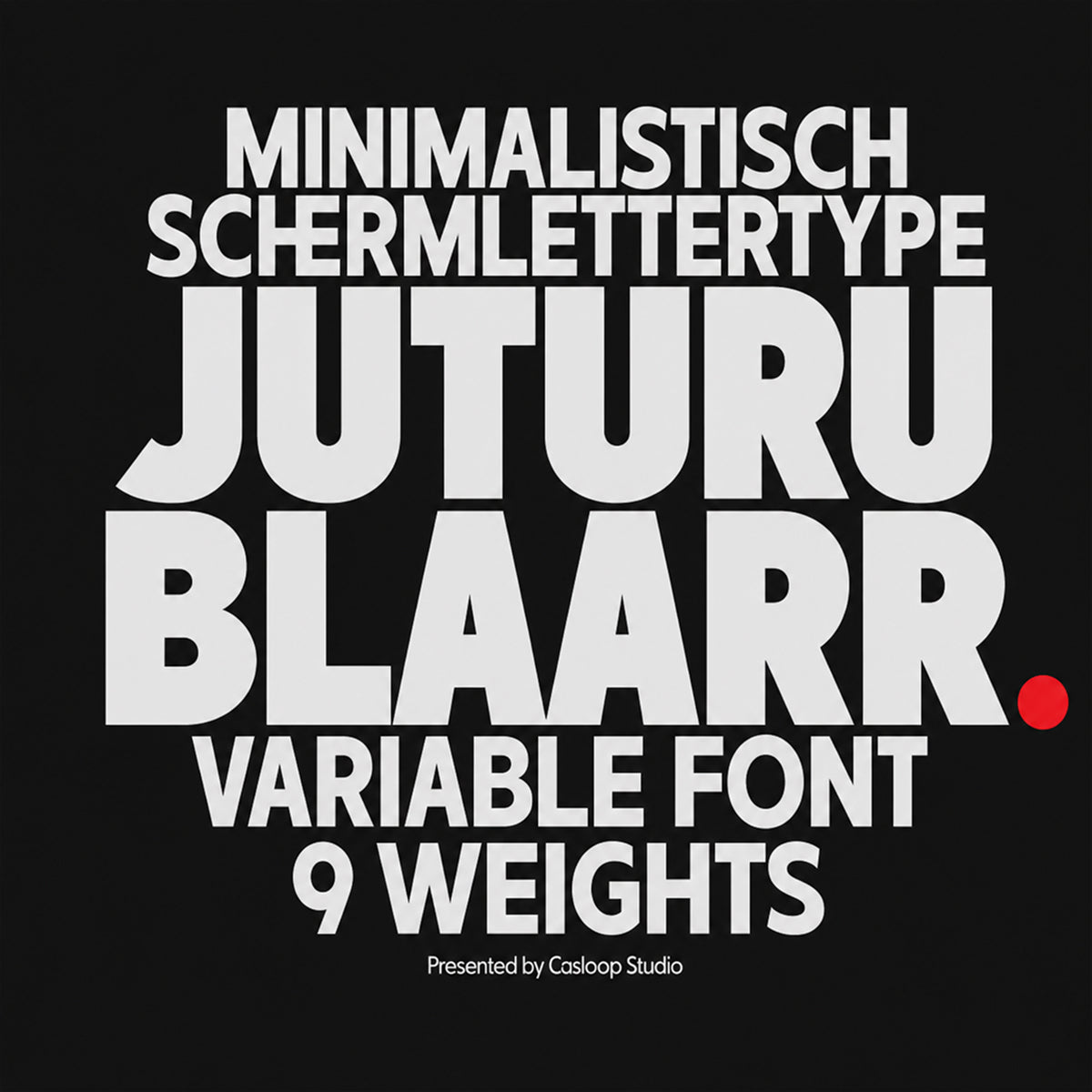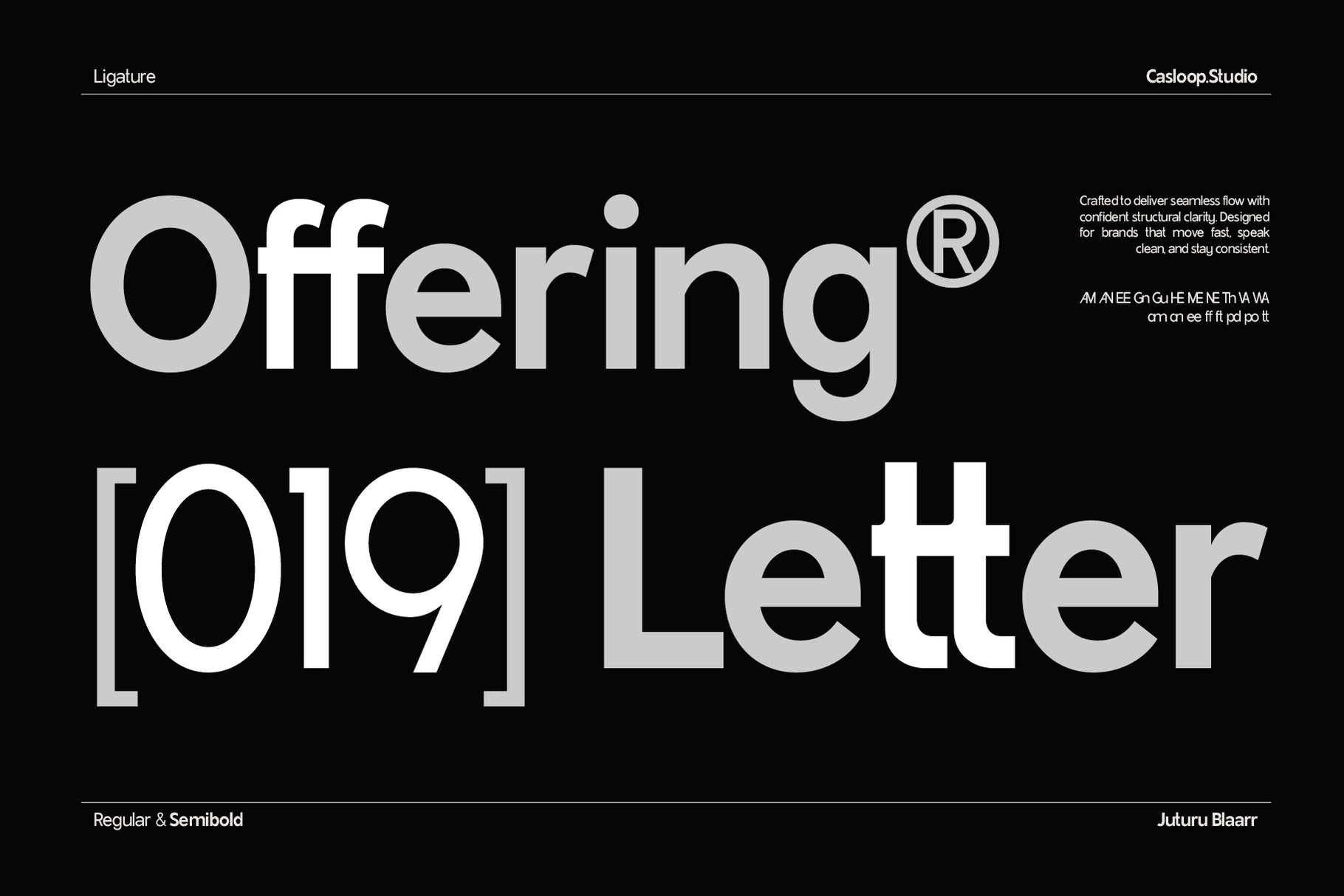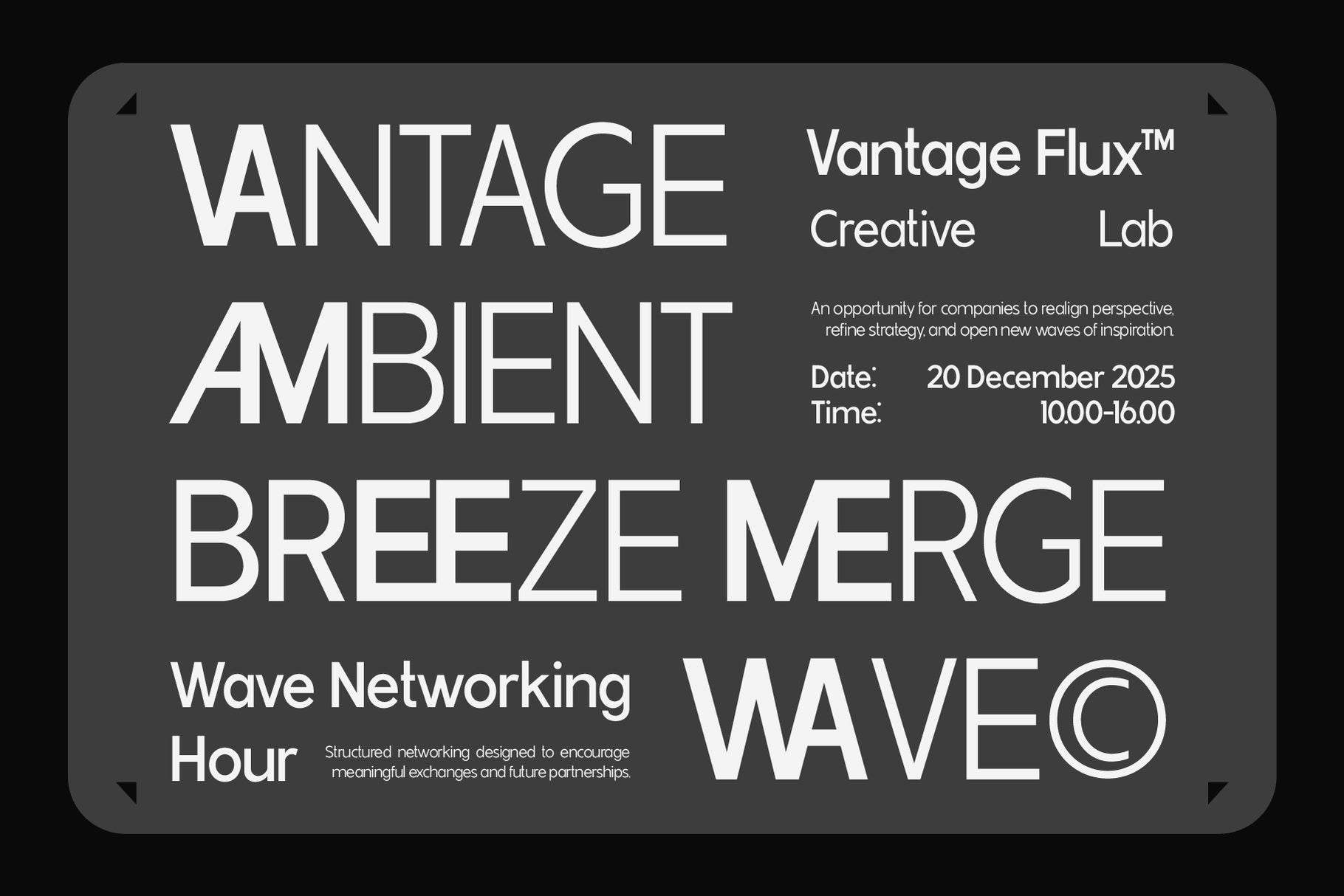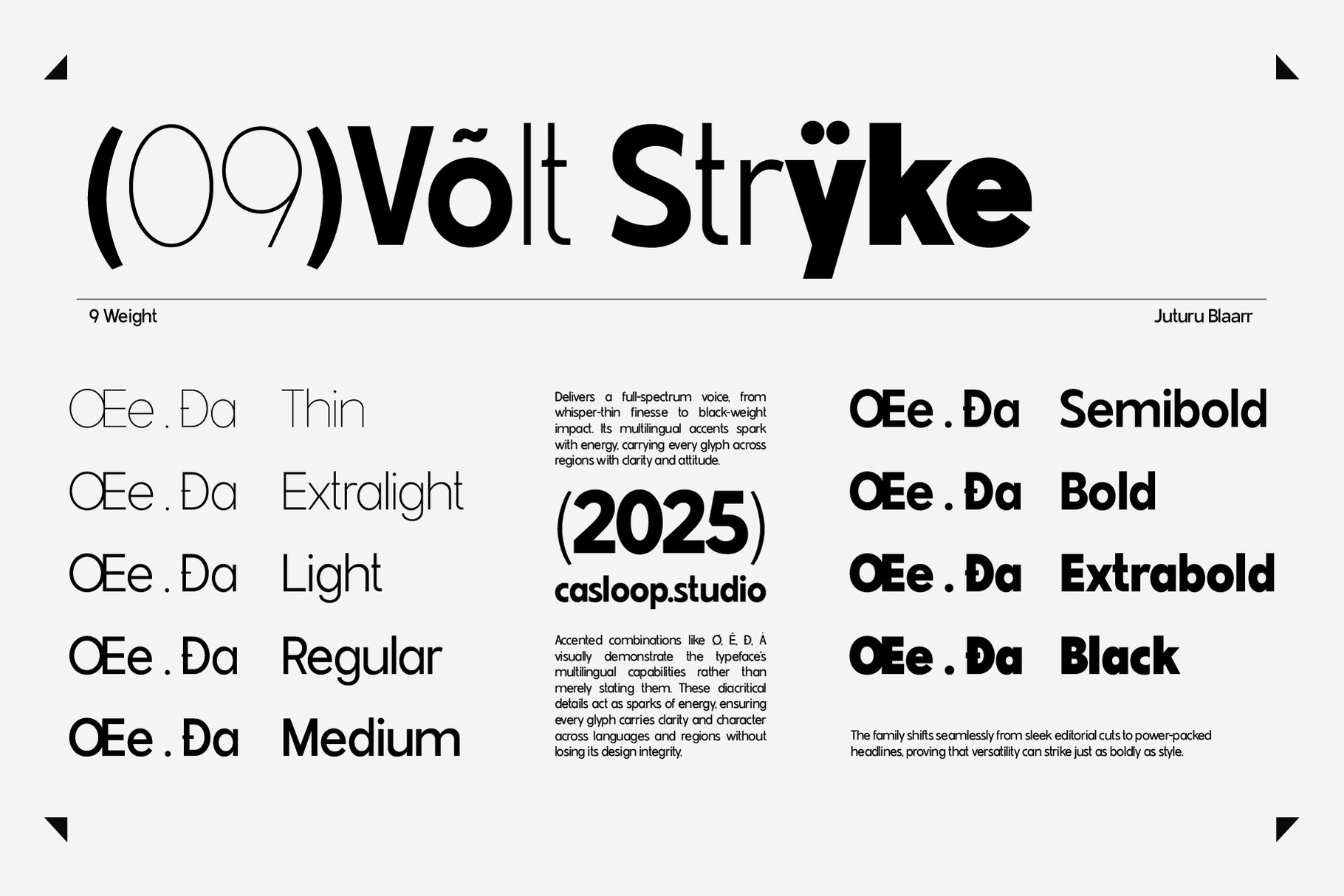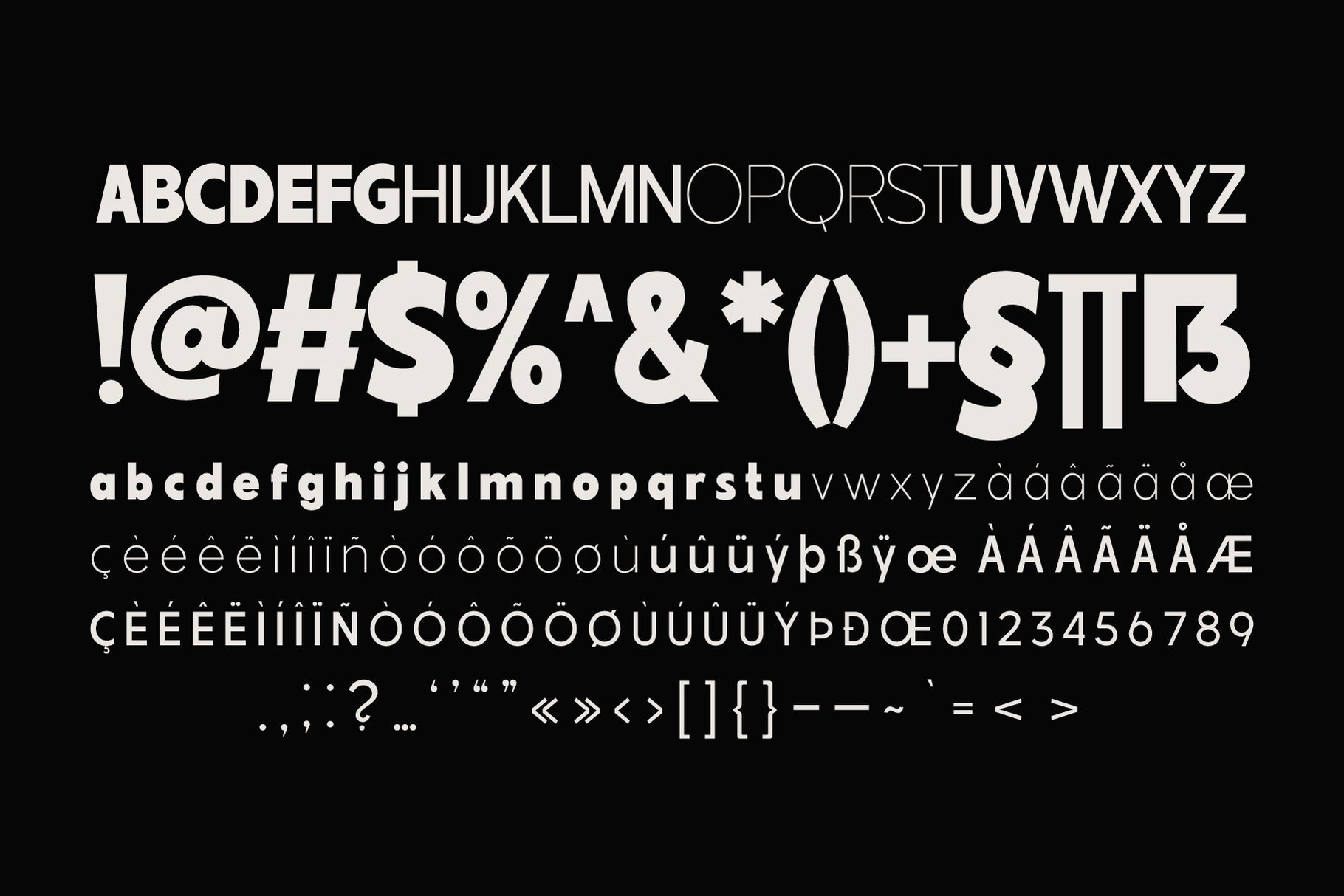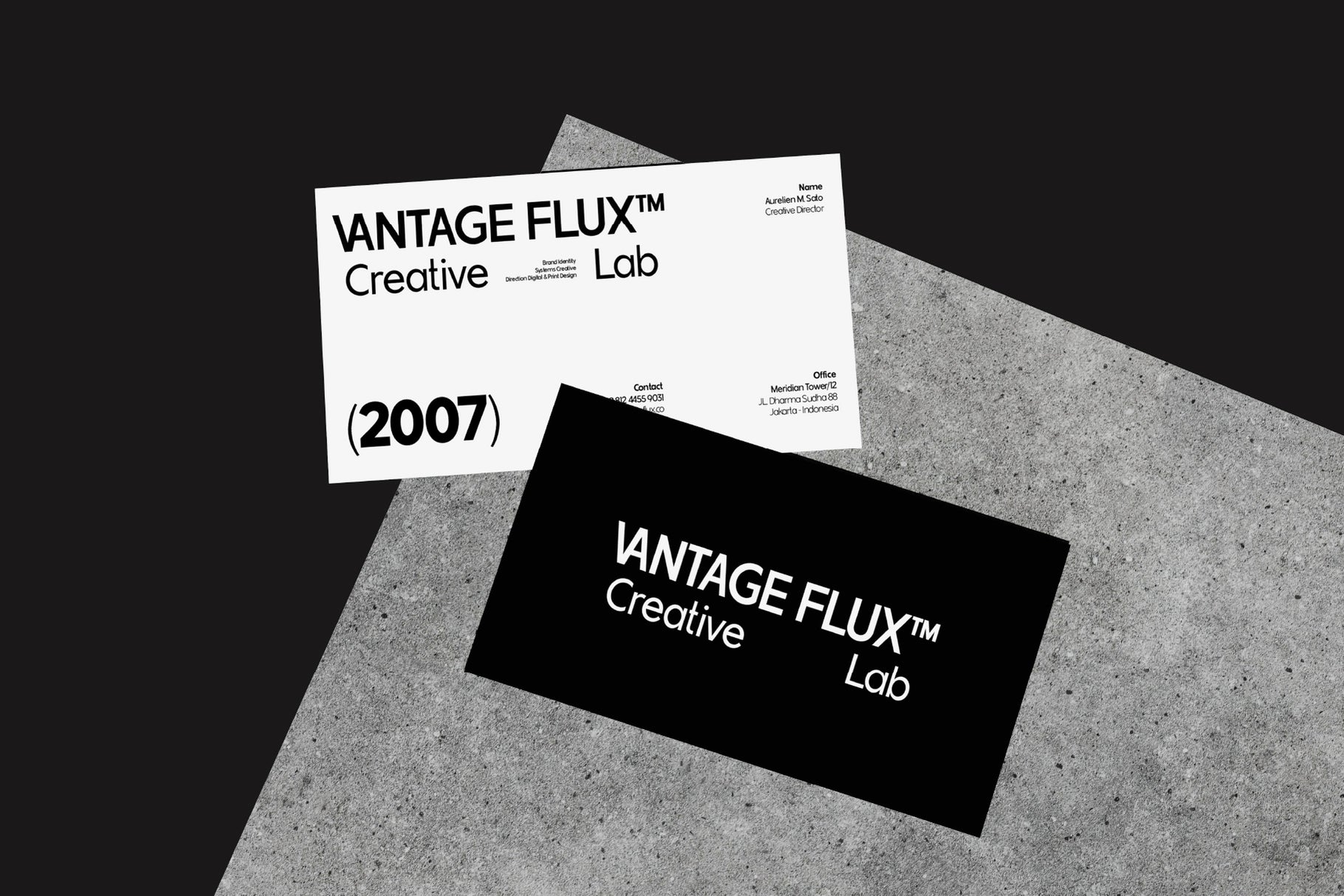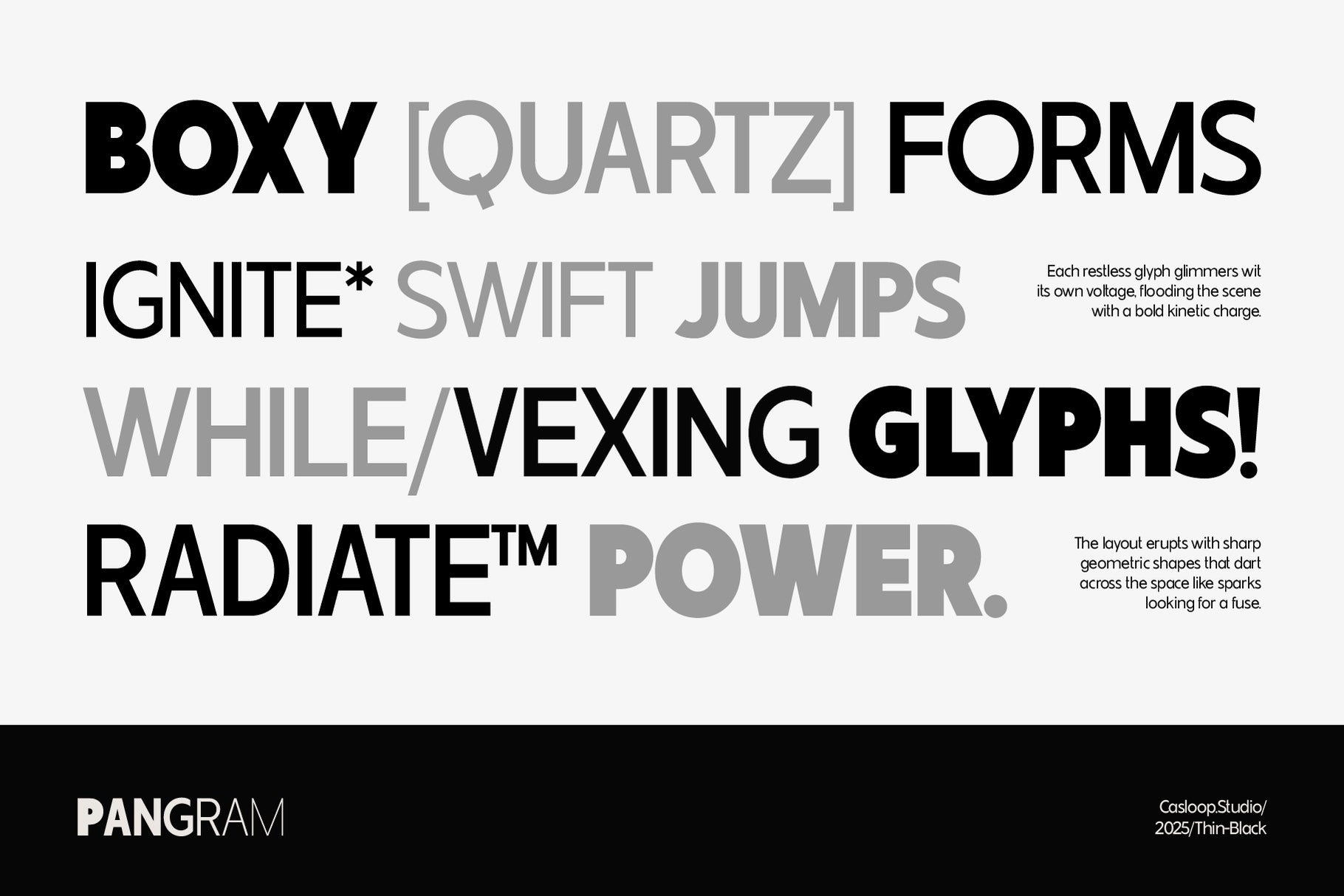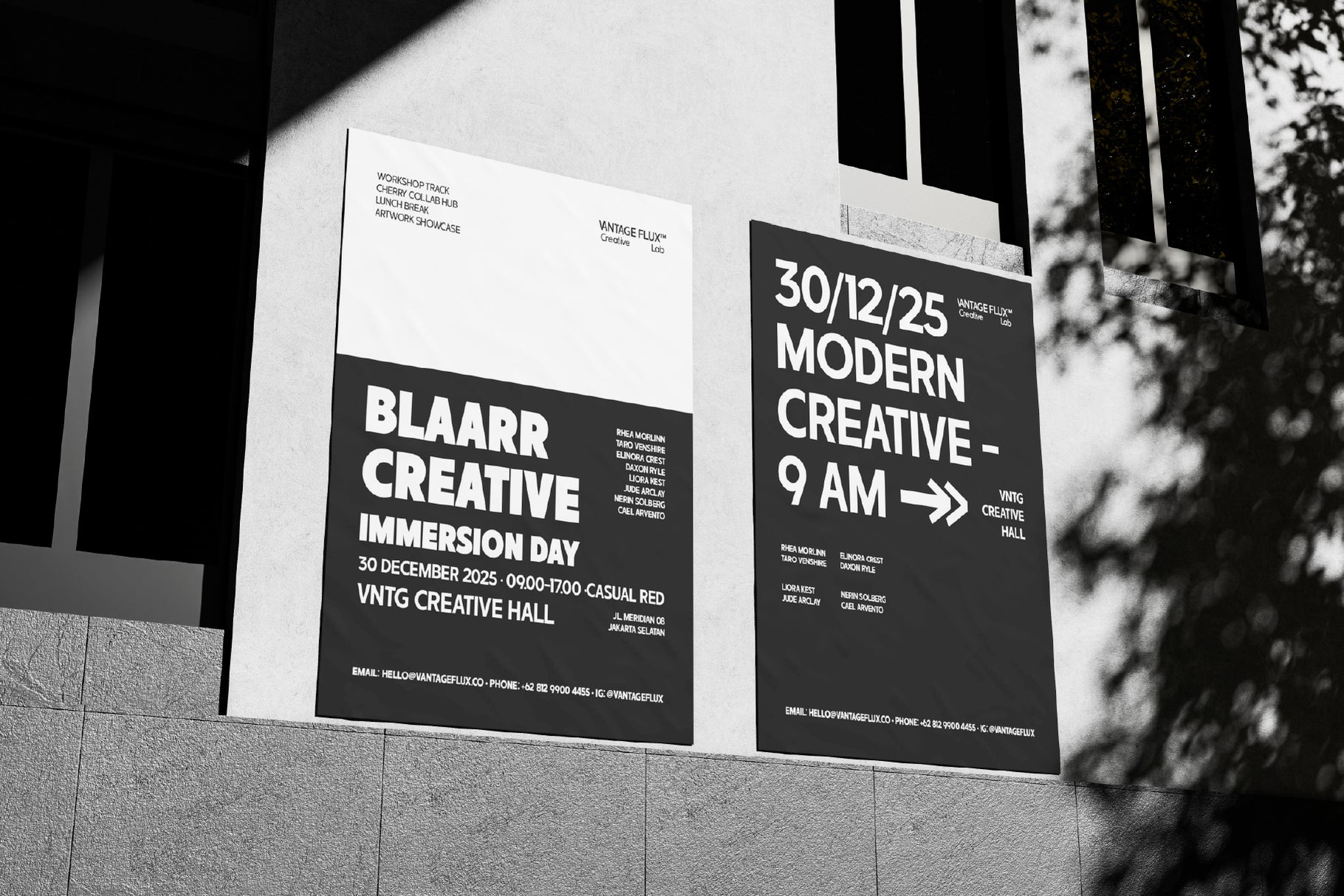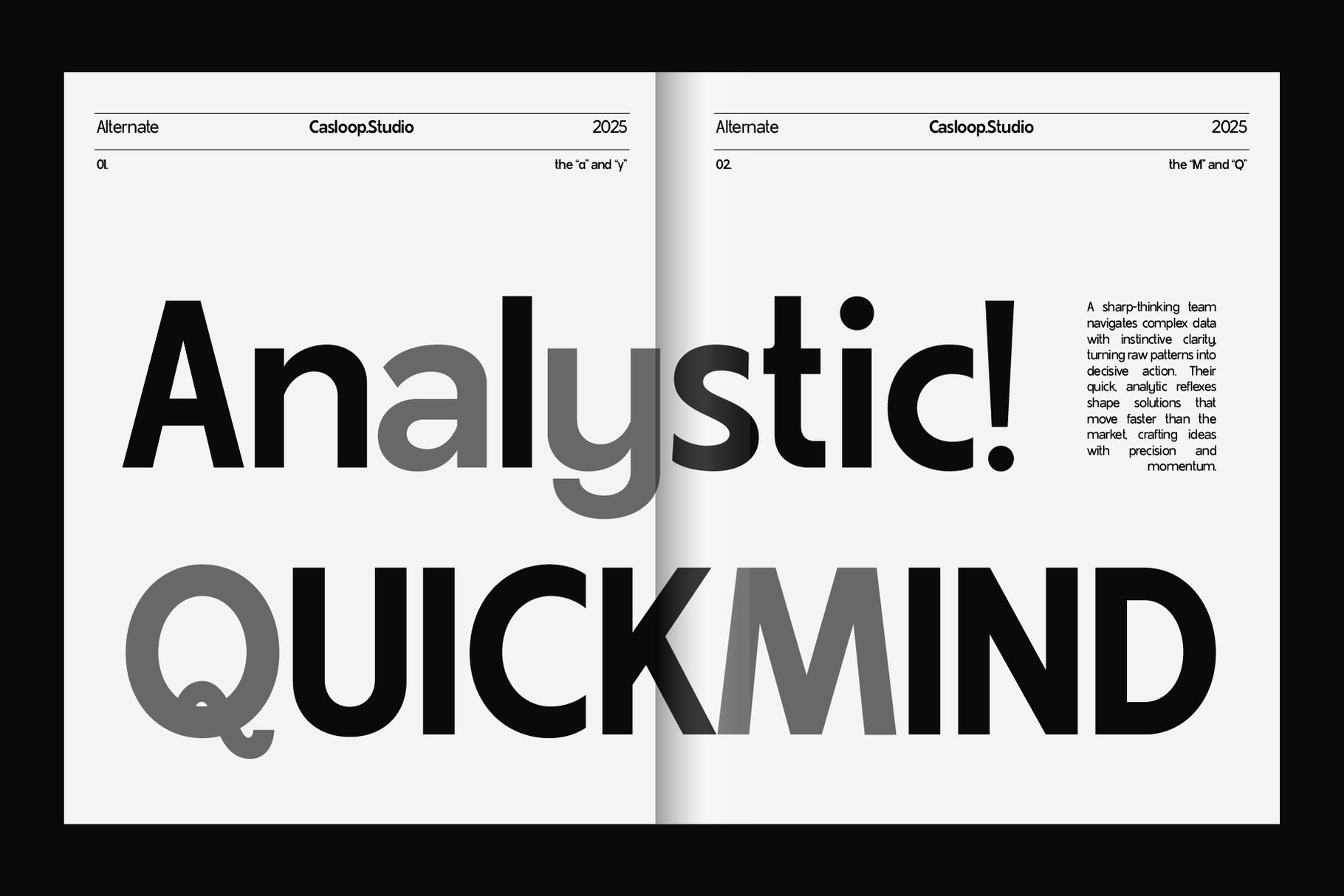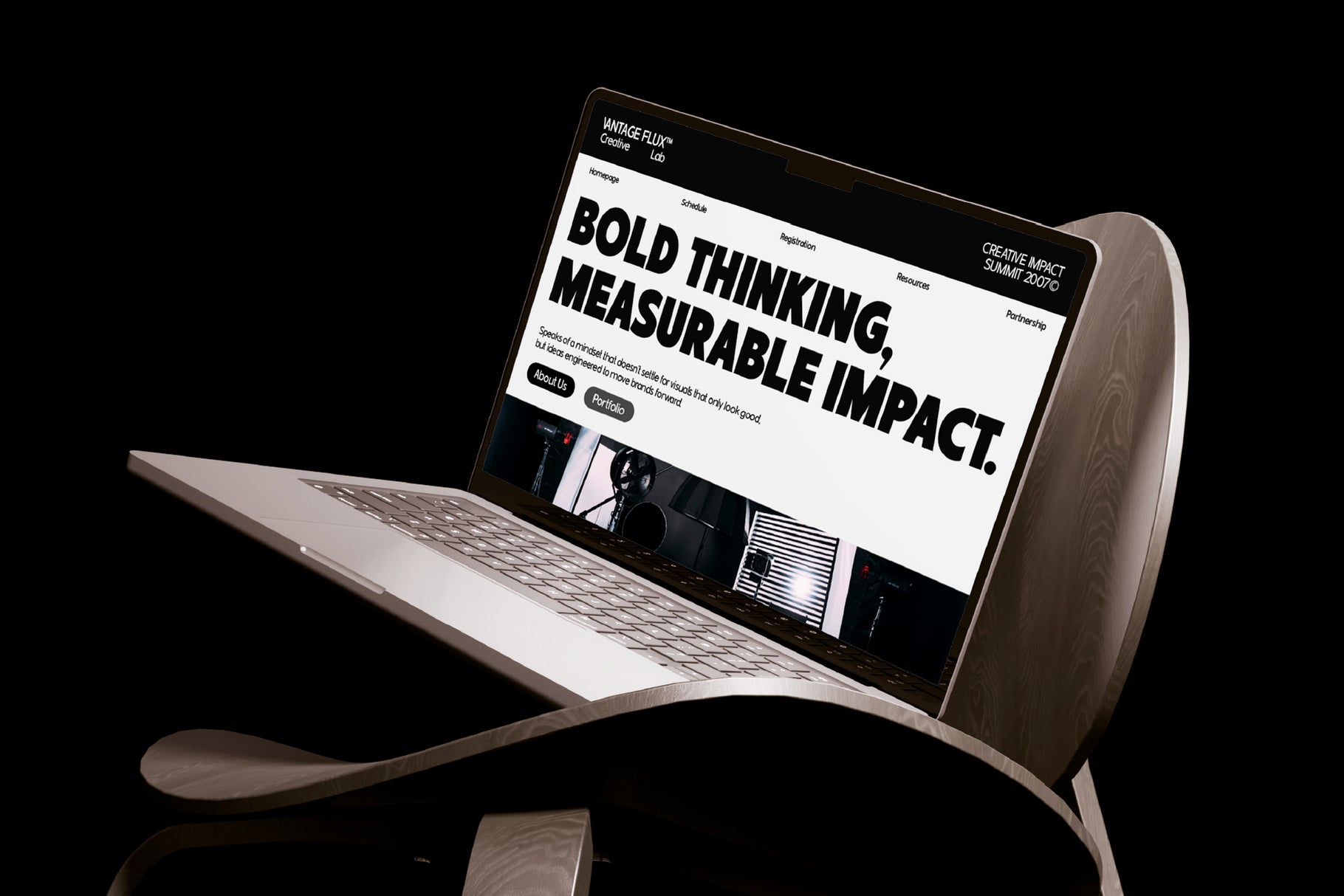
Juturu Blaarr - Clean Geometric Font
JUTURU BLAARR is a minimalist sans serif typeface designed for modern logos and visual systems that value clarity, structure and confidence. With balanced proportions and a disciplined shape, its performance is consistent across scales. Distinctive characters like R, M, A, O, and S create a modern, reliable presence that feels clean, intentional, and built to last. Juturu Blaarr is designed to avoid the stiff, overly “mathematical” feel often found in geometric typefaces. While its forms are clean and well-structured, it carries a more human touch: softer curves, comfortable spacing, and a natural flow. As a result, it feels bold yet warm, neat but not cold, and modern without feeling empty. And recommended pairing with: Inter, DM Sans, Source Sans 3, Acumin, Proxima Nova, Neue Haas Grotesk.
• Uppercase & lowercase
• Numbers and punctuation
• Ligatures & Stylistic Alternates Characters
Multilingual : Bosnian, Catalan, Czech, Danish, German, English, Spanish, Estonian, Finnish, French, Irish, Croatian, Hungarian, Icelandic, Italian, Lithuanian, Latvian, Dutch, Norwegian, Polish, Portuguese, Romanian, Slovak, Slovenian, Albanian, Swedish, Turkish.
Juturu Blaarr is a minimalist sans serif typeface designed for modern logos and visual systems, featuring balanced proportions and distinctive characters. It includes uppercase and lowercase letters, numbers, punctuation, ligatures, and stylistic alternates, and supports multiple languages with file formats including .otf, .ttf, .woff, and .woff2.